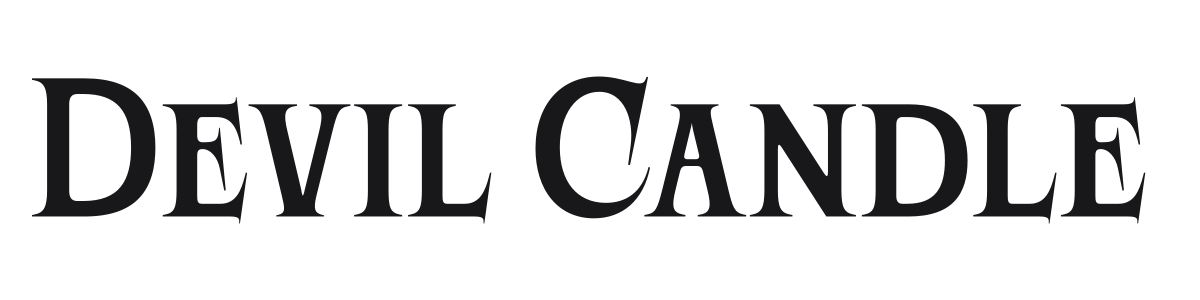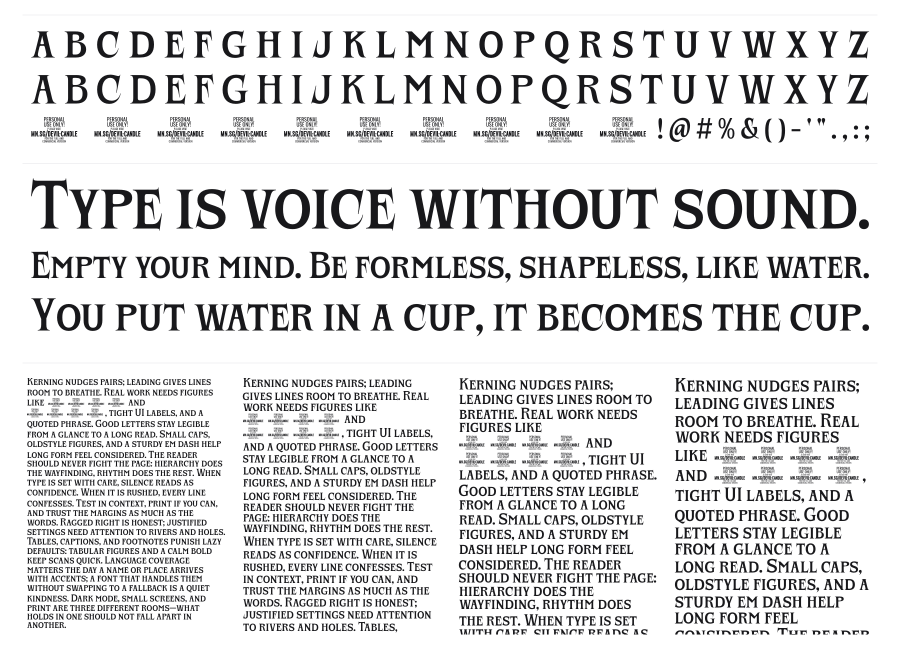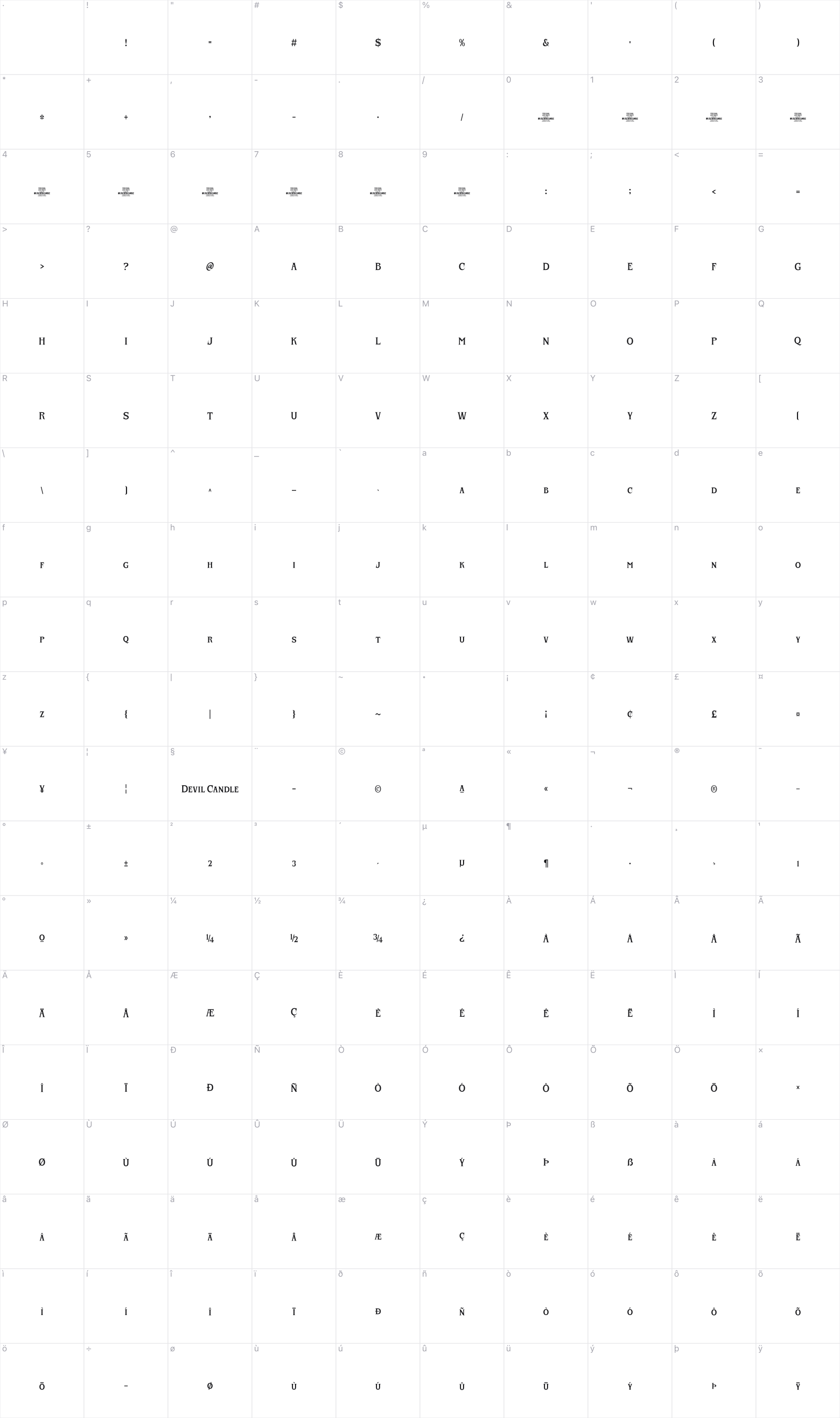
Devil Candle
Devil Candle is a dark display serif by Mans Greback that plays on dramatically shifting character widths to evoke the flicker of a candle flame. The high stroke contrast and wedge-cut serifs root it firmly in gothic and Victorian horror traditions. It carries genuine menace at large sizes, making it a natural choice for horror film titles, Halloween branding, and occult-themed editorial work.